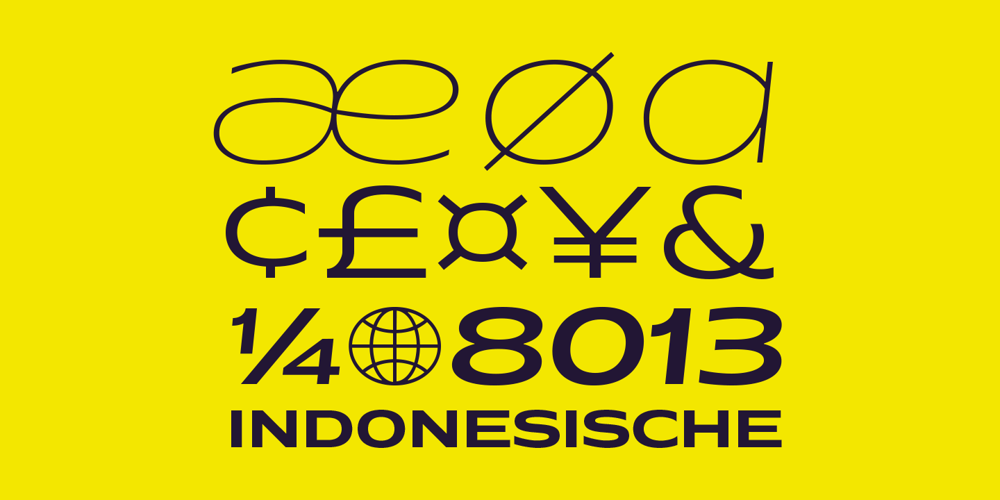
Matrice Font Family was designed by Cahya Sofyan and published by Studio Sun. Matrice contains 16 styles and family package options. Matrice is a sans serif (Semi Extended) display font family in 8 weights plus matching natural italics. support 75+ Languanges (Latin Based) influenced by the grotesk typefaces developed in the early 20th century, perfect for branding (Identity), logotype, headline text, and caption.